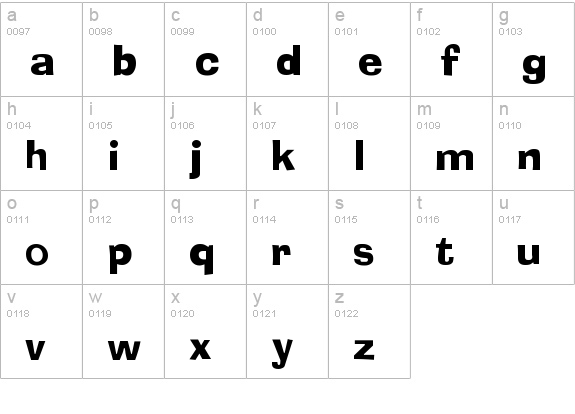
AdSix Regular is the standard, neutral variant in the AdSix typeface family \xE2\x80\x94 well suited to general body text, paragraphs, and standard typographic work.
Introducing AdSix Regular font - a versatile and modern typeface that is perfect for a wide range of design projects. With its clean lines and balanced proportions, AdSix Regular exudes a sense of sophistication and elegance. Whether you're designing a logo, creating a website, or crafting a brochure, this font is sure to make your text stand out.